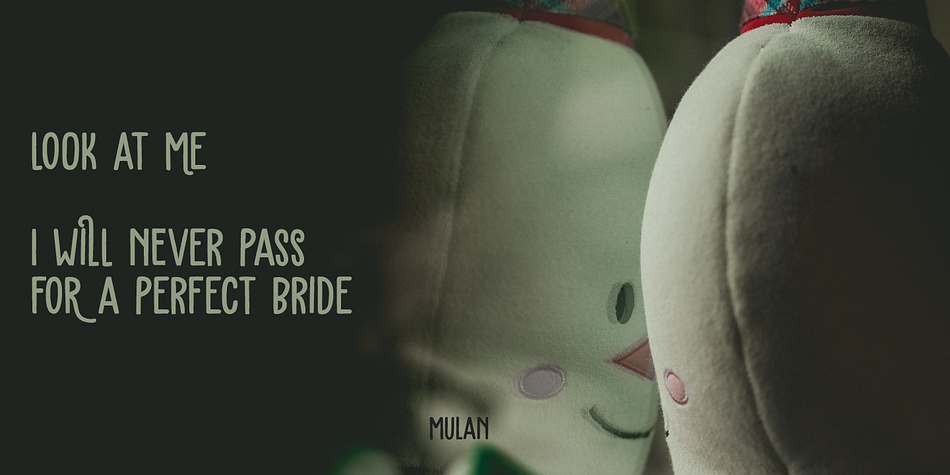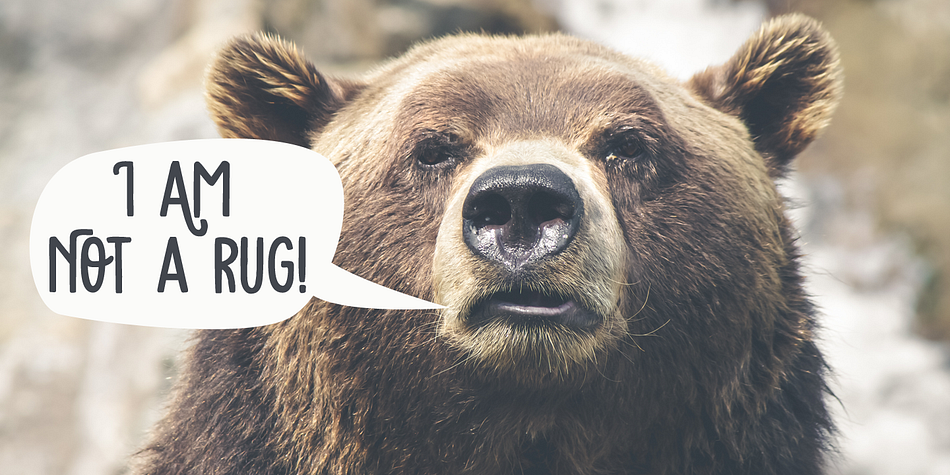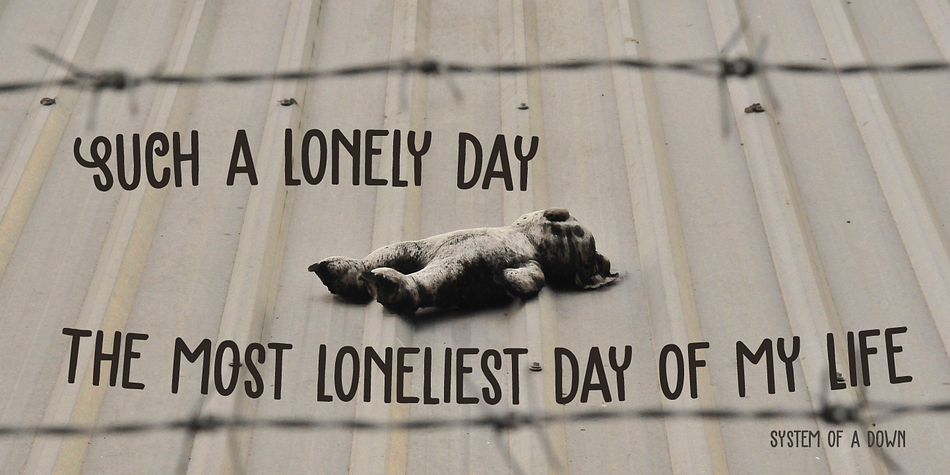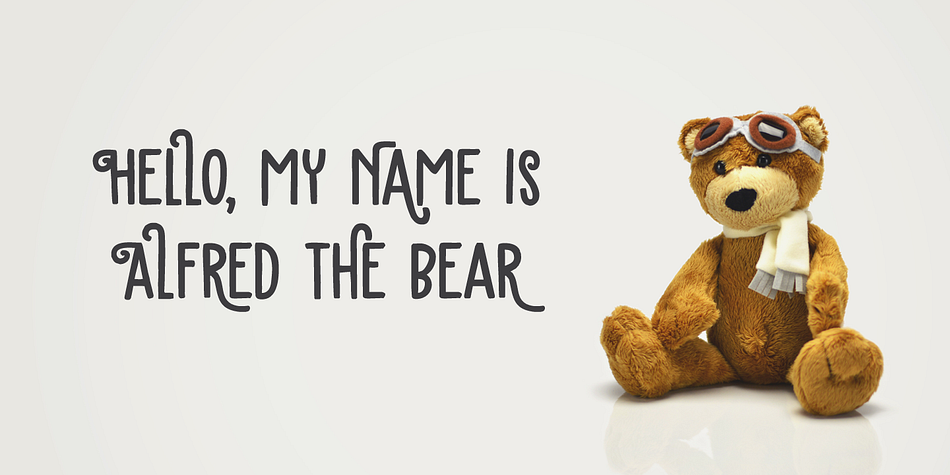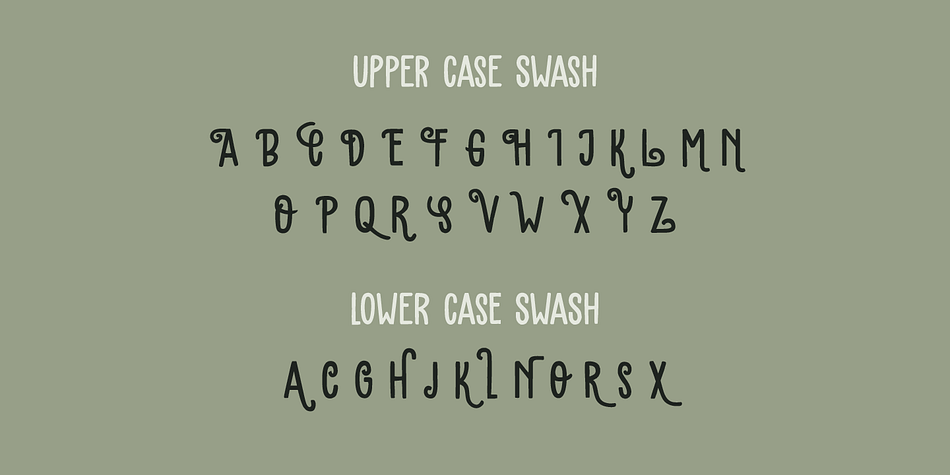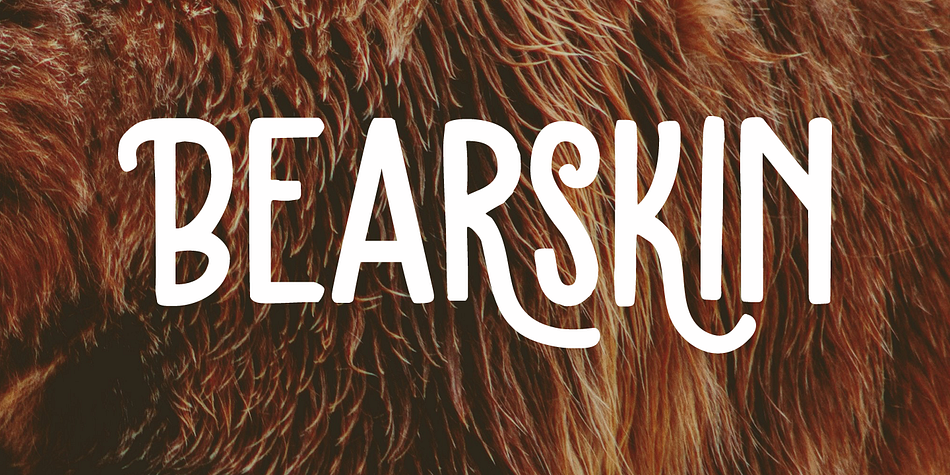
Designed by David Kerkhoff, Bearskin is a hand display font family. This typeface has two styles and was published by Hanoded.
NO! I don’t have a bearskin rug, nor a fur collar on my jacket. I believe fur should only be worn by its first owner. I have no idea why I called this font Bearskin: maybe I was influenced by one of the Viking novels I am reading - they’re full of Berserkers - but that name was already taken. Anyhoo, Bearskin font is a nice handmade all caps font. A little rough here and there, but with a lot of character as well. Bearskin comes with swashes, so you can have a ball!